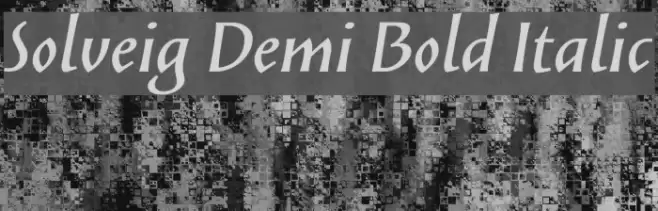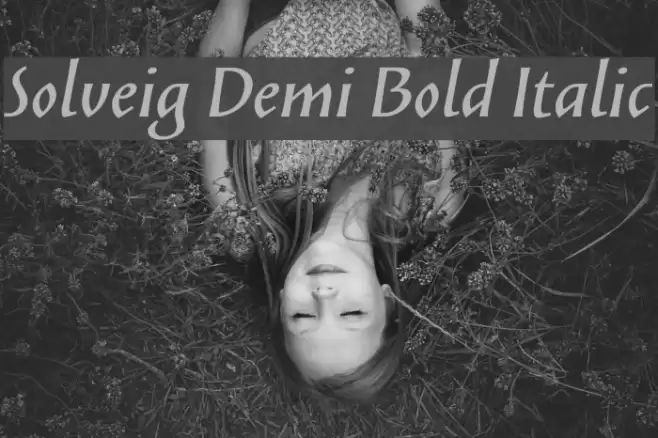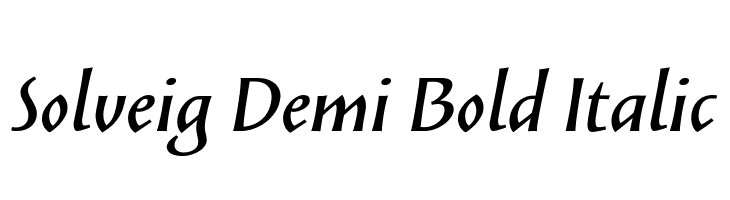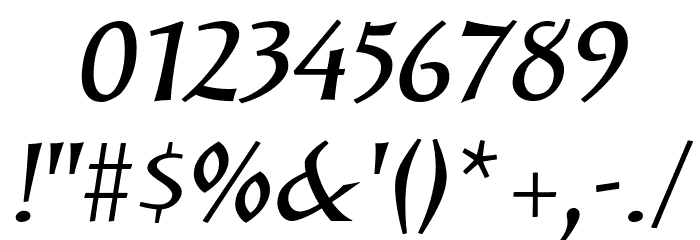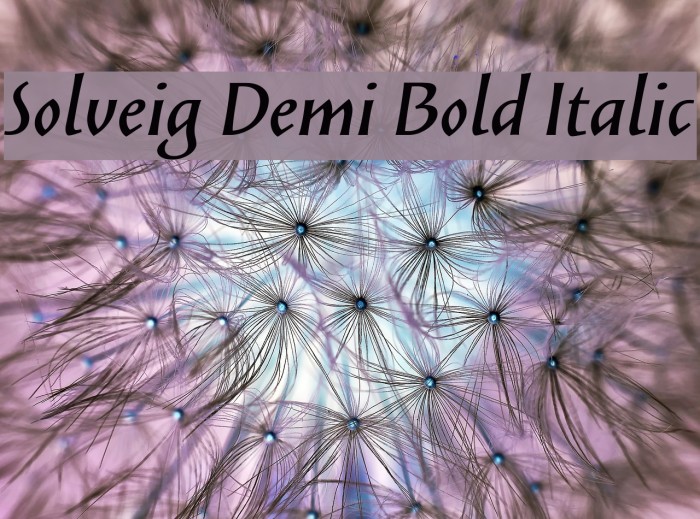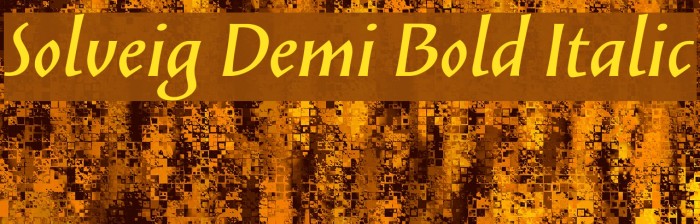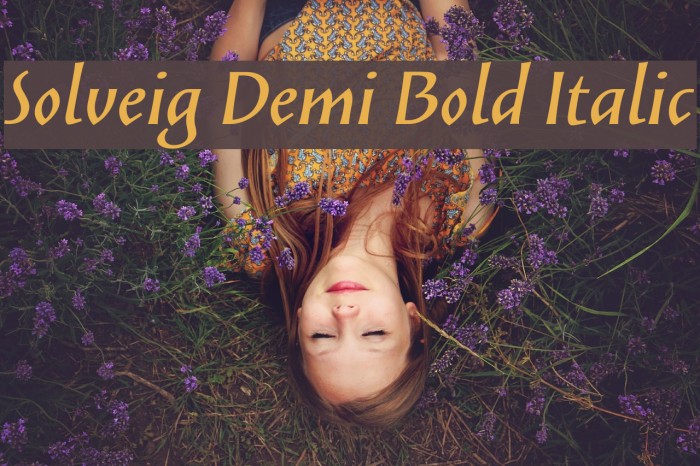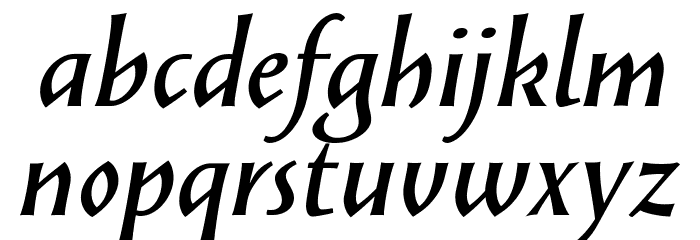
Solveig Demi Bold Italic Font
Solveig Demi Bold Italic Description
This font features a dynamic and flowing style, characterized by its elegant italic slant and bold weight. The letterforms are slightly condensed, giving it a sophisticated and modern appearance. The strokes are smooth and well-defined, with a moderate contrast between thick and thin lines, enhancing readability while maintaining a stylish flair. The uppercase letters are tall and commanding, while the lowercase letters exhibit a graceful and fluid motion. Numerals are clear and distinct, complementing the overall aesthetic. Special characters are thoughtfully designed, integrating seamlessly with the rest of the typeface.
A bold, italic font with a modern and elegant style, featuring smooth, flowing letterforms from Uncategorized fonts.
- Proposed Projects: Ideal for branding projects, elegant invitations, fashion magazines, and high-end product packaging.
- Use Case: Logos, Headlines, Branding